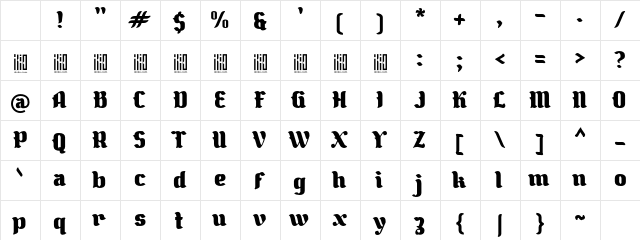
Complete The Black Knight Bold glyph index. Displaying only characters natively supported by The Black Knight Bold font.
The Black Knight is a composed and adaptable typeface that performs quietly and consistently across a wide range of design contexts. Its bold stroke weight gives it real presence on the page.